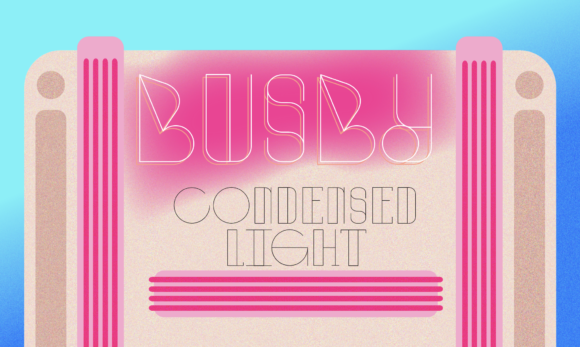
Meet the captivating Busby Condensed Light Font – a masterpiece of retro aesthetics and powerful visual impact waiting to elevate your creative endeavors to new heights! Its distinctive display style is tailor-made for captivating designs that demand attention, from t-shirts and sportswear to logos, advertisements, and clothing. Dive into the realm of vintage charm with Busby Condensed Light and prepare to make your designs stand out effortlessly!
Unleash the Enchantment: A blast from the past, Busby Condensed Light effortlessly evokes a nostalgic charm with its quirky, retro-inspired character. Let your designs exude a timeless essence that resonates with audiences, creating a captivating experience that leaves a lasting impression.
Craft Bold Statements: More than just a font, Busby Condensed Light is a powerful tool for creating bold statements that command attention effortlessly. Its dynamic personality shines through, adding an aura of sophistication and uniqueness to any project it graces, leaving a remarkable impact on audiences.
Effortless Design Elevation: Unleash your creativity and transform ordinary designs into extraordinary masterpieces with the transformative power of Busby Condensed Light. This unique font possesses the uncanny ability to instantly enhance any project, effortlessly elevating it to new heights of visual excellence.
Make Your Vision a Reality: Busby Condensed Light is not just a font; it's a gateway to a world of limitless creative possibilities. Its versatility enables you to seamlessly weave it into a diverse range of design projects, effortlessly adapting to your unique vision and artistic style. Let your imagination run wild and sculpt designs that capture the essence of your brand and resonate deeply with your target audience.
As you embark on your creative journey with Busby Condensed Light, prepare to witness the transformation of your designs into captivating works of art. Let your imagination soar and revel in the delight of crafting designs that exude a vintage charm while simultaneously captivating audiences with their modern, eye-catching appeal. Experience the mesmerizing power of Busby Condensed Light and elevate your creative endeavors to the realm of extraordinary!